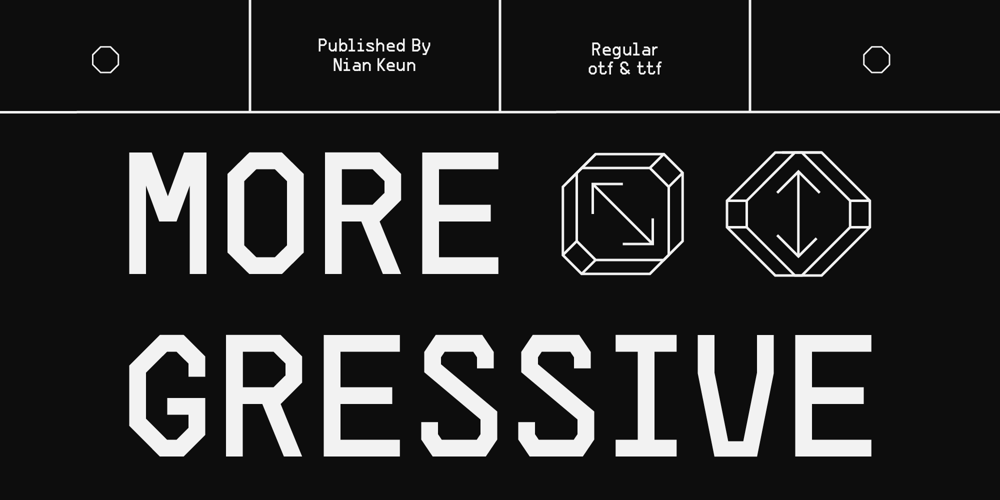
Moregressive Font Family was designed by Mugi Raharjo and published by Nian Keun Studio. Moregressive contains 1 styles and family package options. Moregressive is a cutting-edge display font that seamlessly blends tech-inspired aesthetics with modern clean style. Born from the very essence of technology, this font draws inspiration from various pixel forms, encapsulating the sophistication and innovation of advanced technology. The name “Moregressive” itself embodies a progressive approach, emphasizing both technological prowess and modernity.Designed for the digital era, Moregressive elevates your visual projects to new heights. With its sleek and dynamic design, this font adds a tech-savvy edge to any display, making it perfect for applications in futuristic graphic design, high-tech branding, and modern digital interfaces.As a nod to its pixel-inspired roots, Moregressive symbolizes the evolution of design, capturing the essence of progress and forward-thinking creativity. Embrace the future with this font and infuse your projects with a sense of modern sophistication and technological innovation.Thank you for coming to my shop and enjoying other fonts.